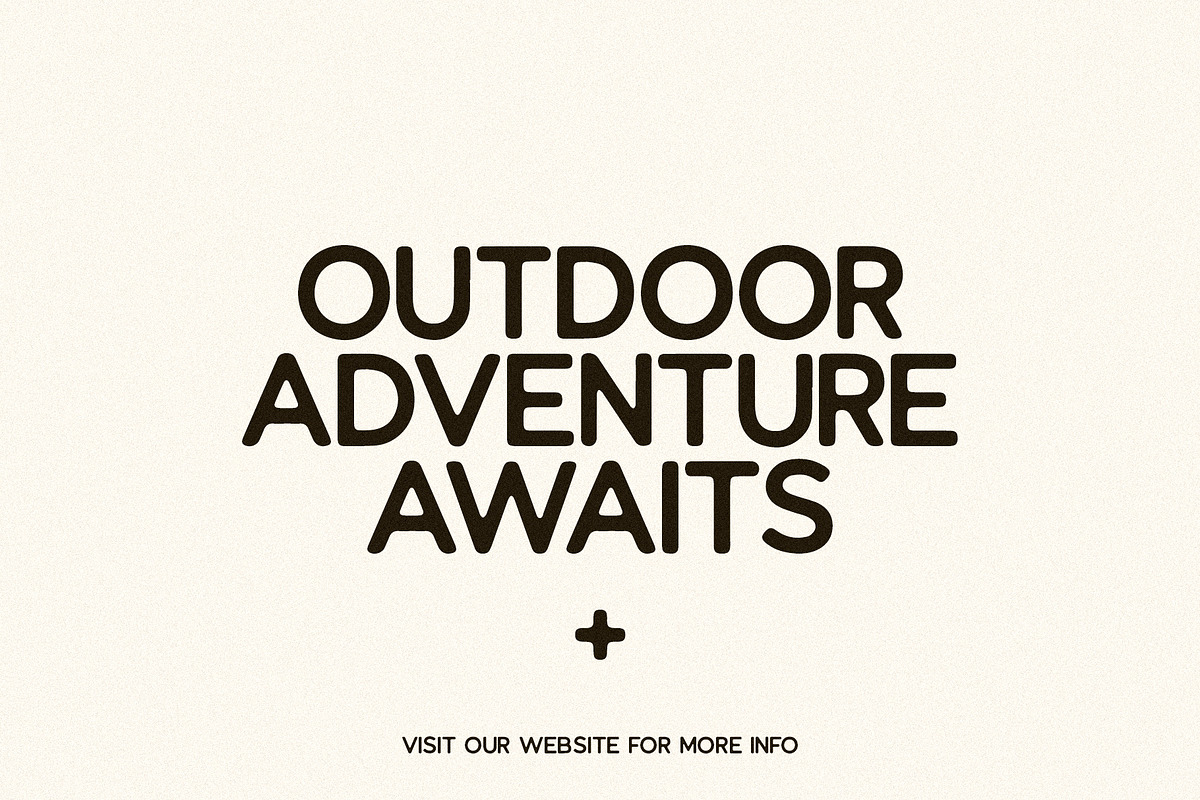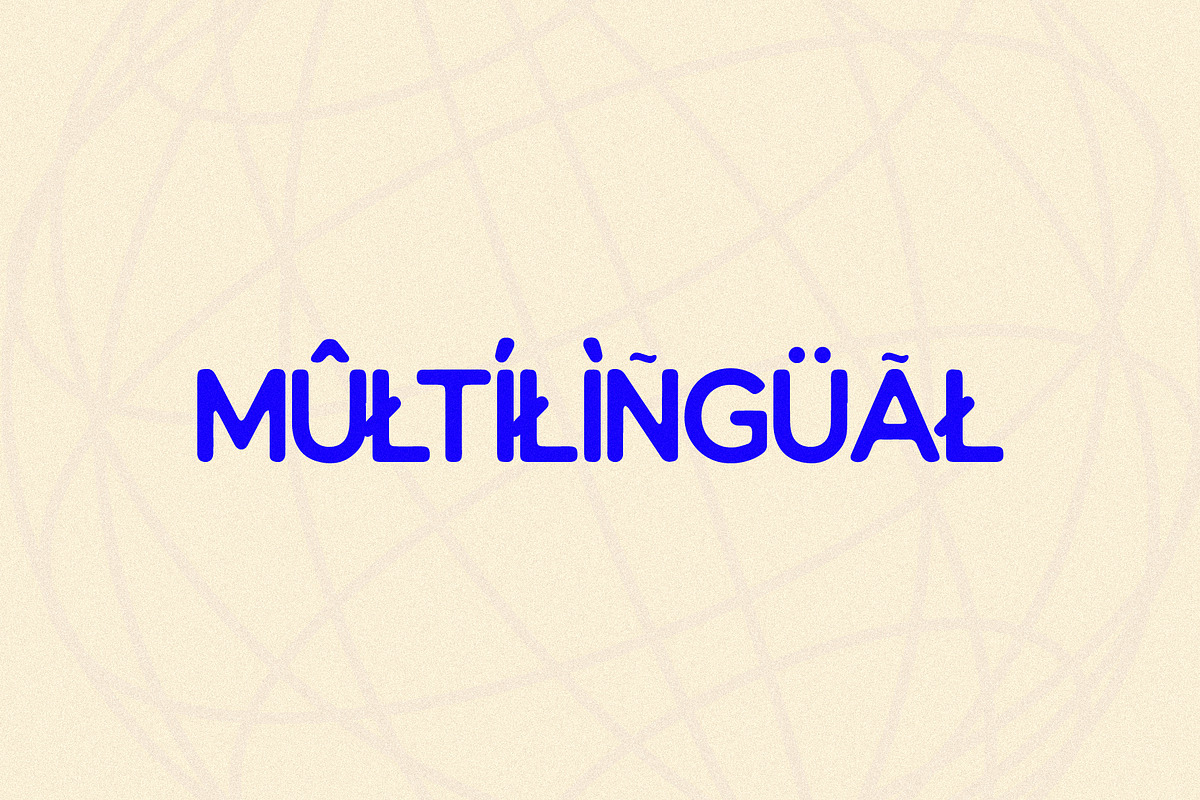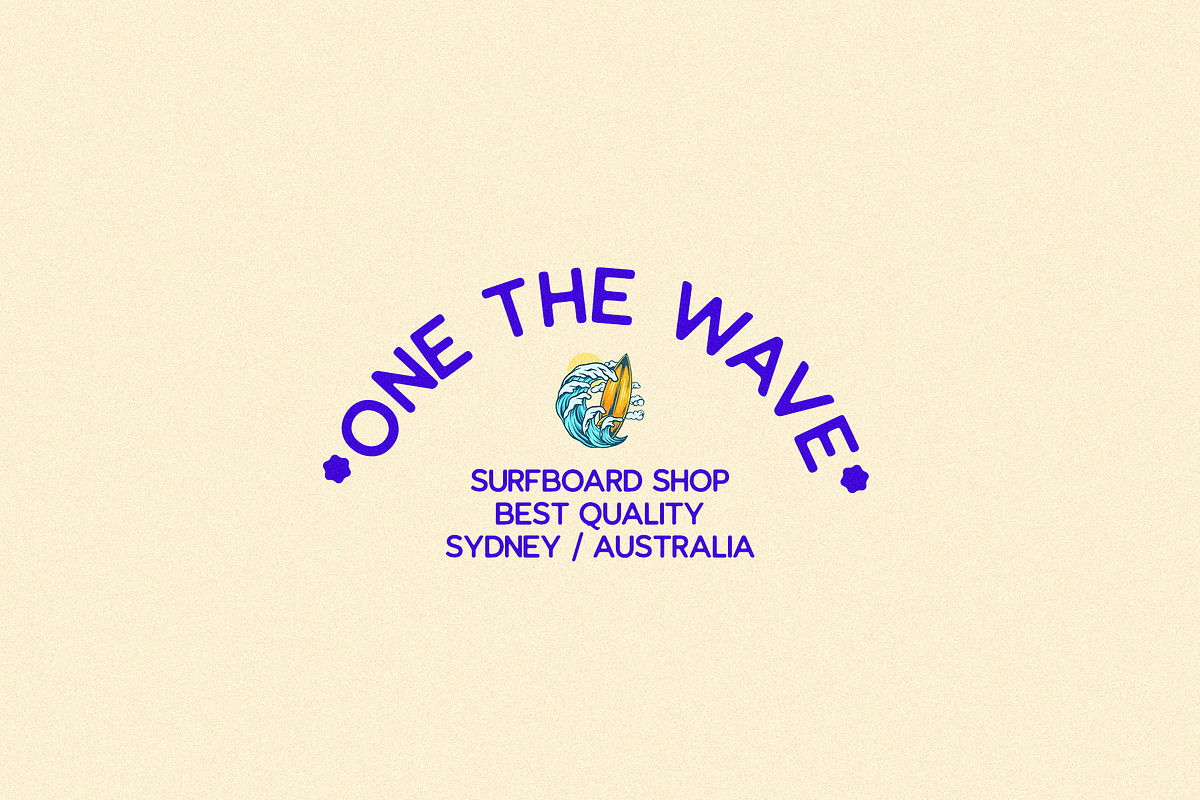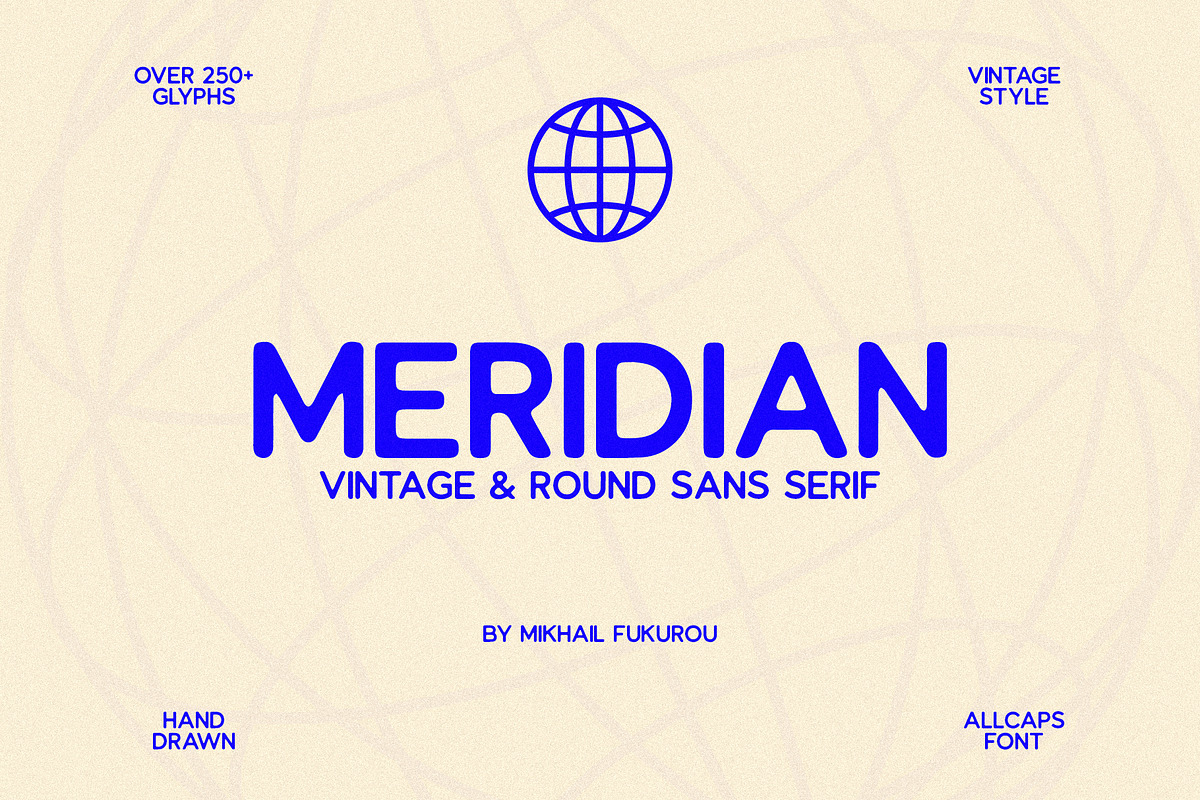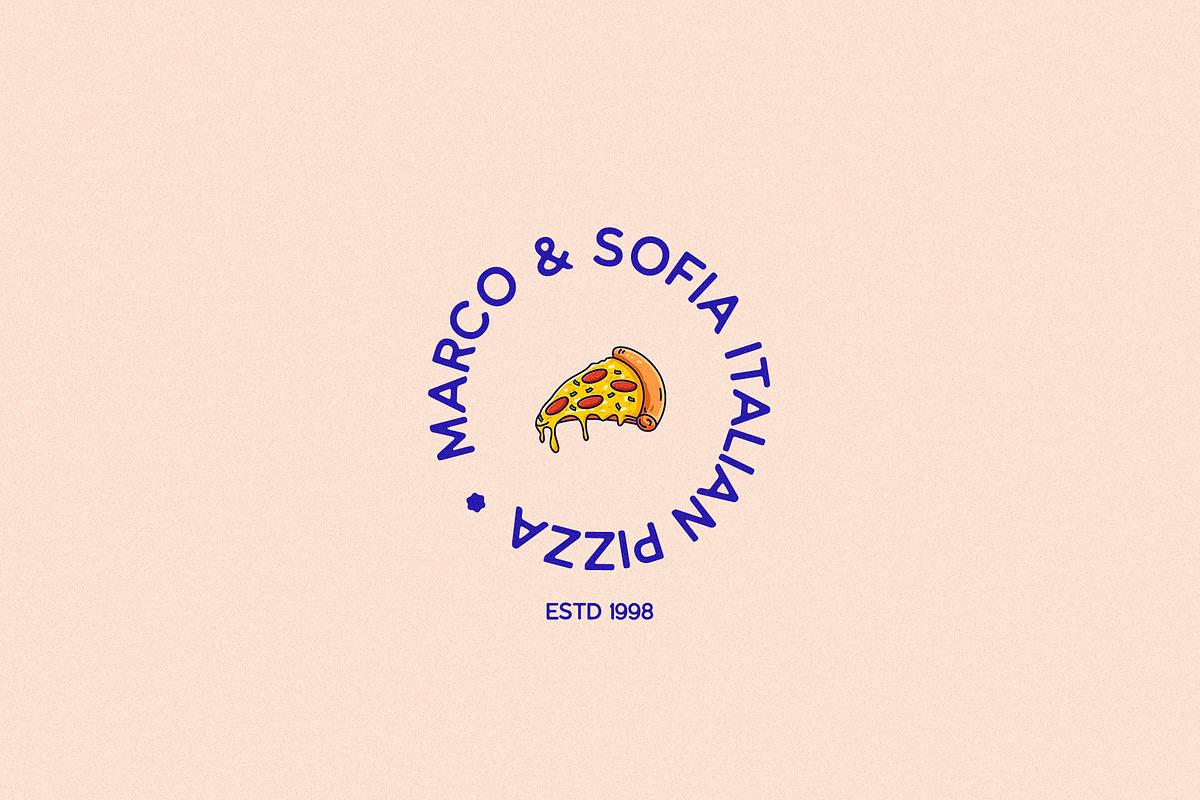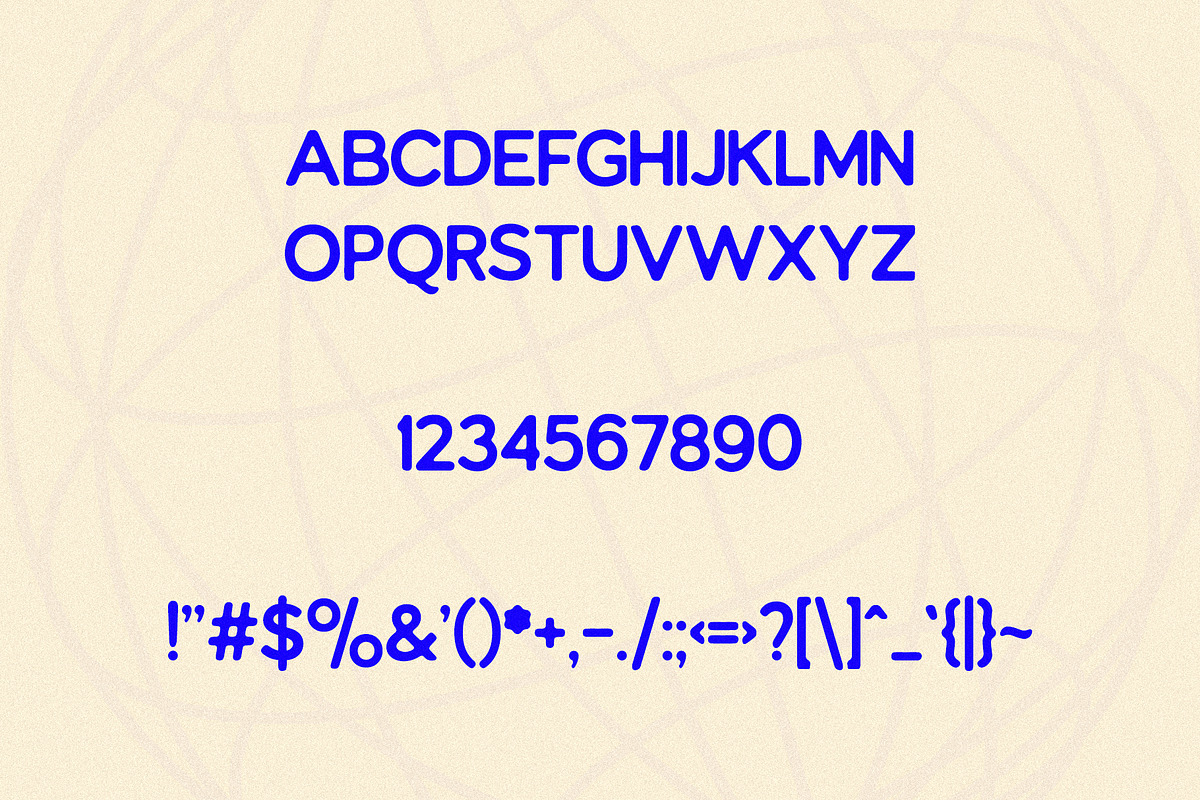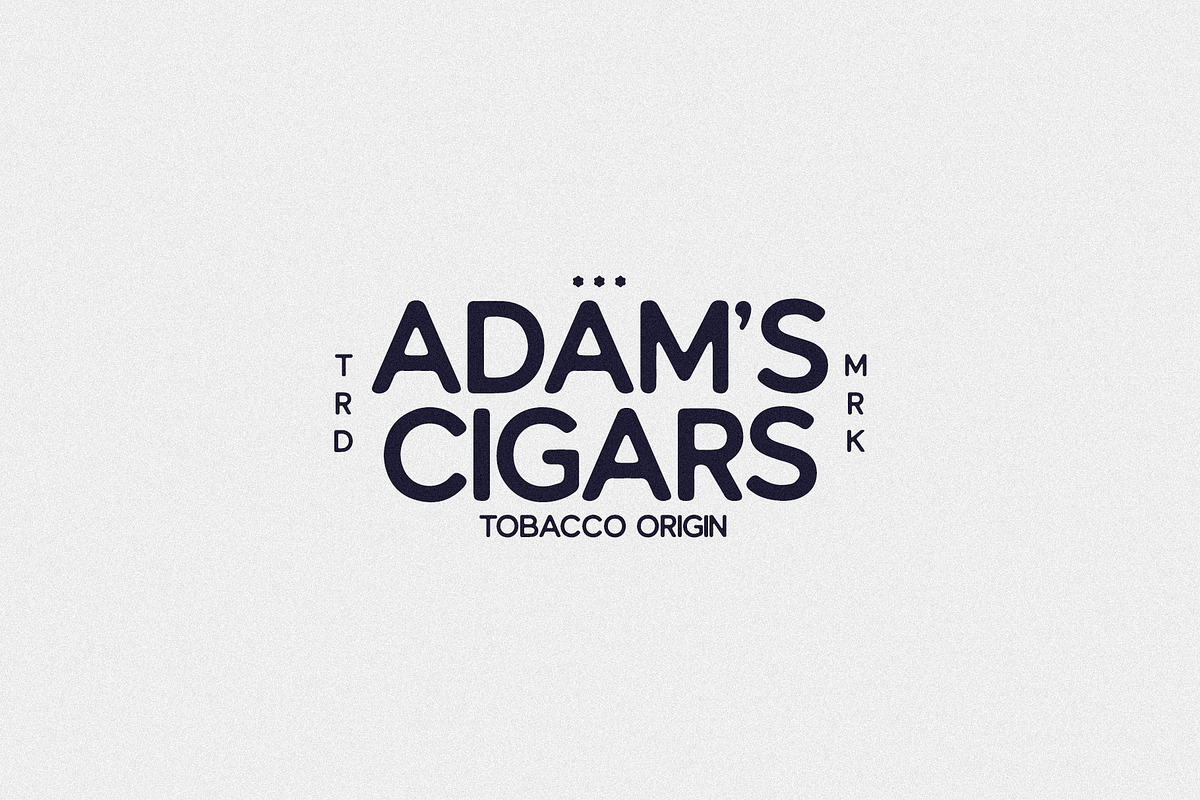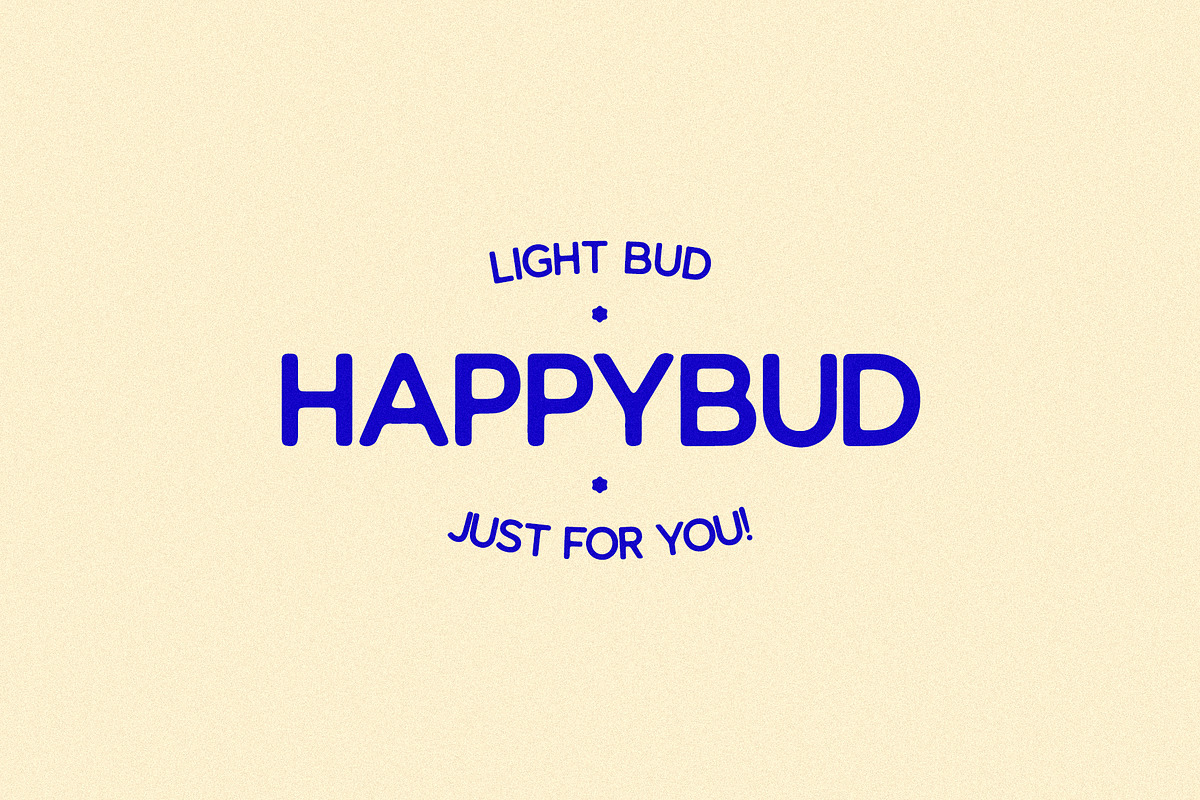
Meridian - Vintage & Round Sans
Meridian is a vintage & round sans serif font. This font combines the timeless charm of vintage design with a modern twist. With its rounded edges and absence of serifs, Meridian exudes a clean and minimalist aesthetic. Its warm and friendly appearance makes it suitable for a wide range of design projects, including logos, branding materials, posters, packaging, and more. The simplicity and legibility of Meridian make it versatile for both display and body text. Embodying elegance and approachability, Meridian adds a touch of classic vintage charm to any design.
- Letters
- More than 250+ glyphs